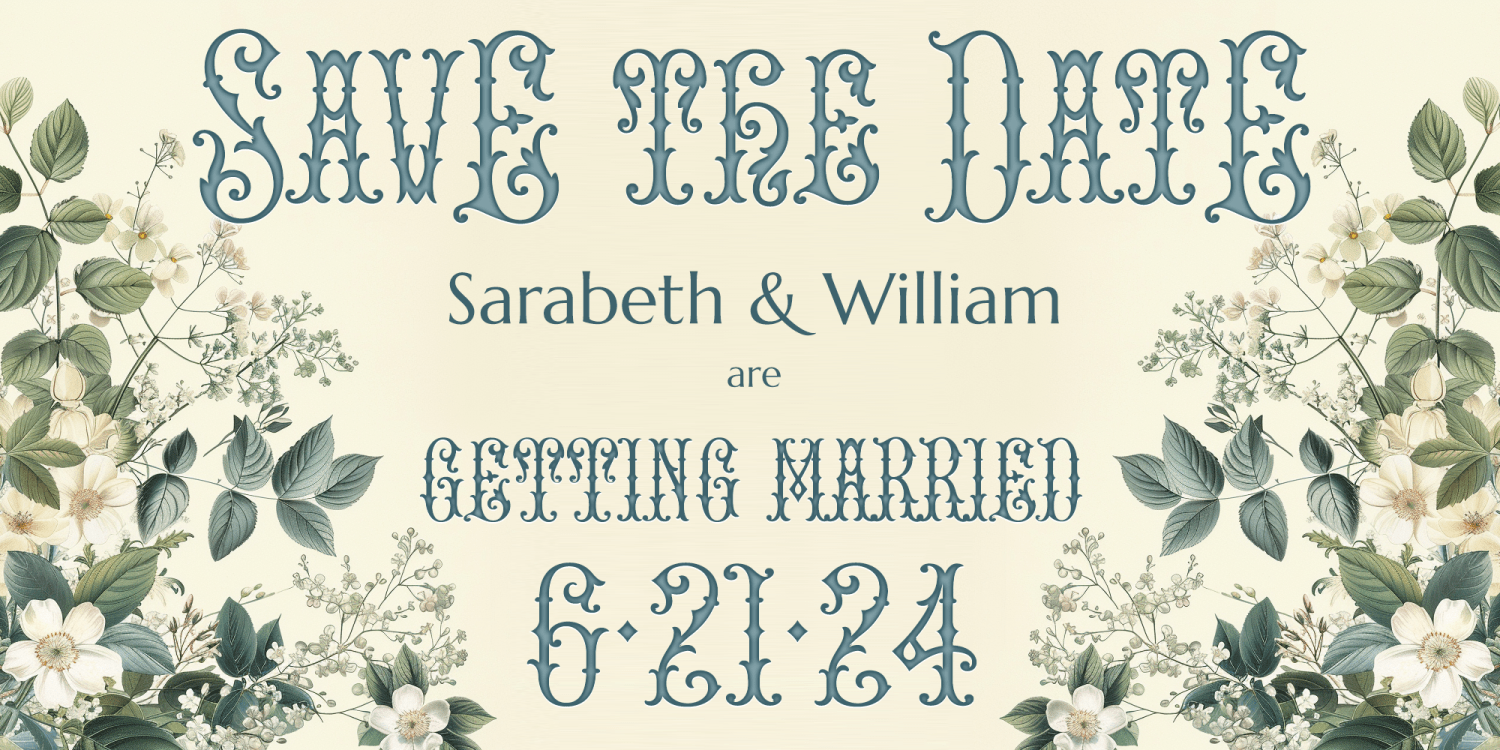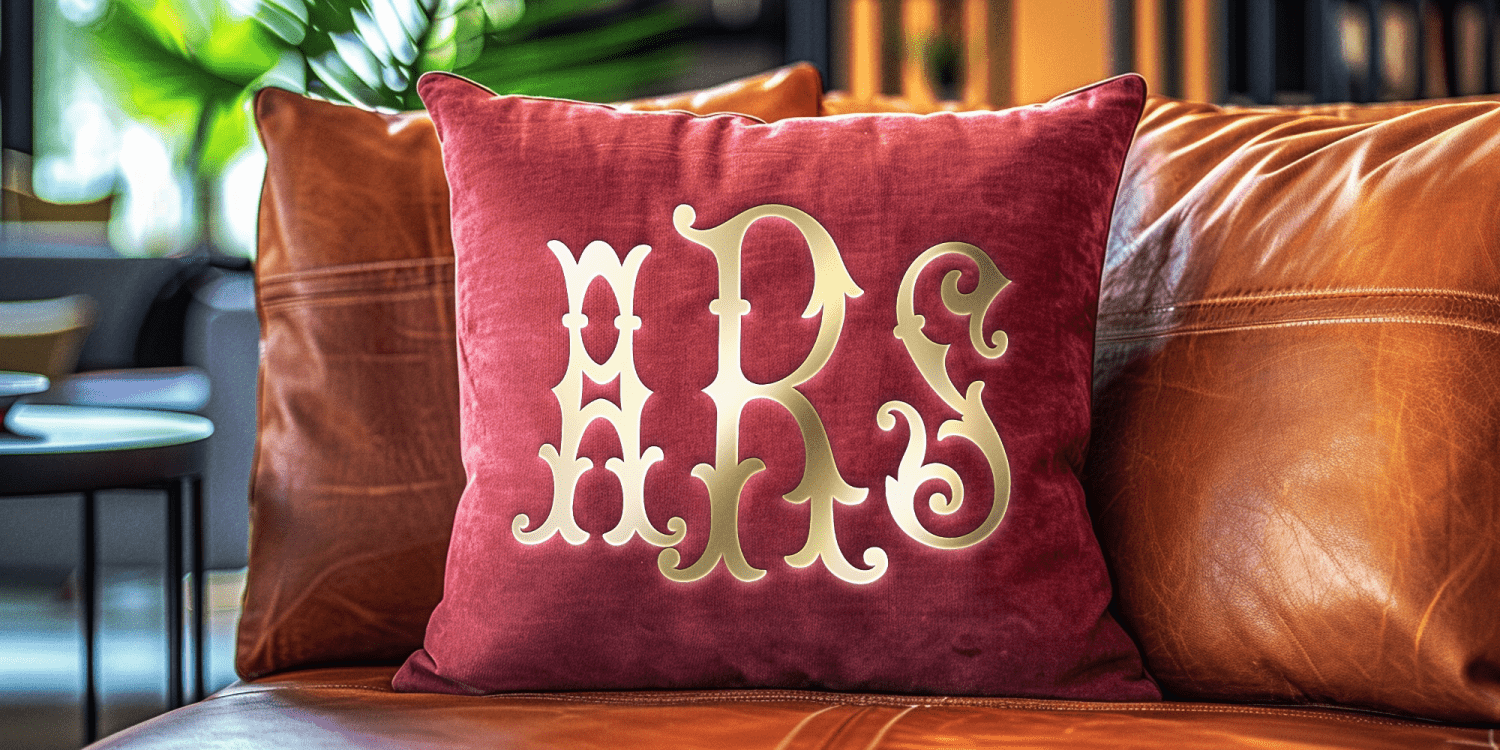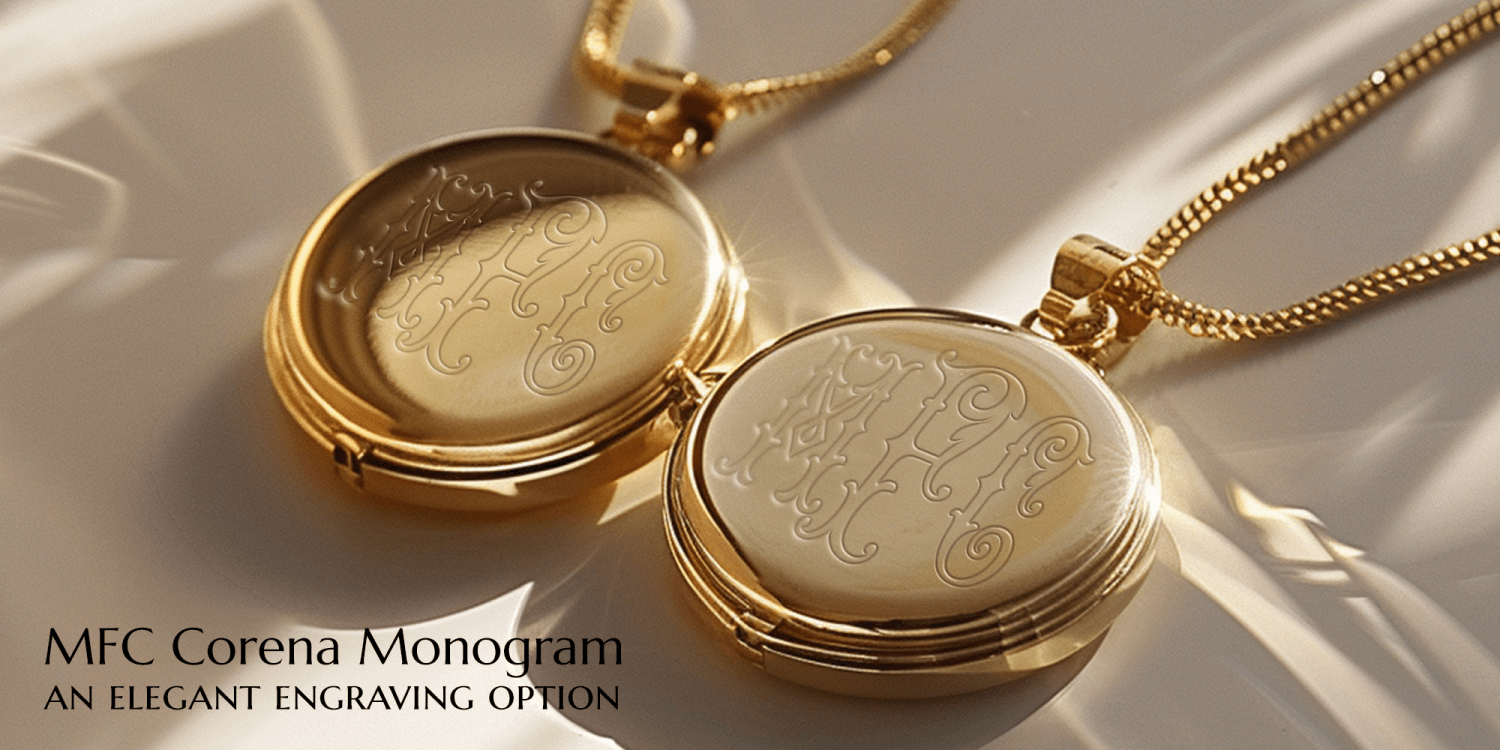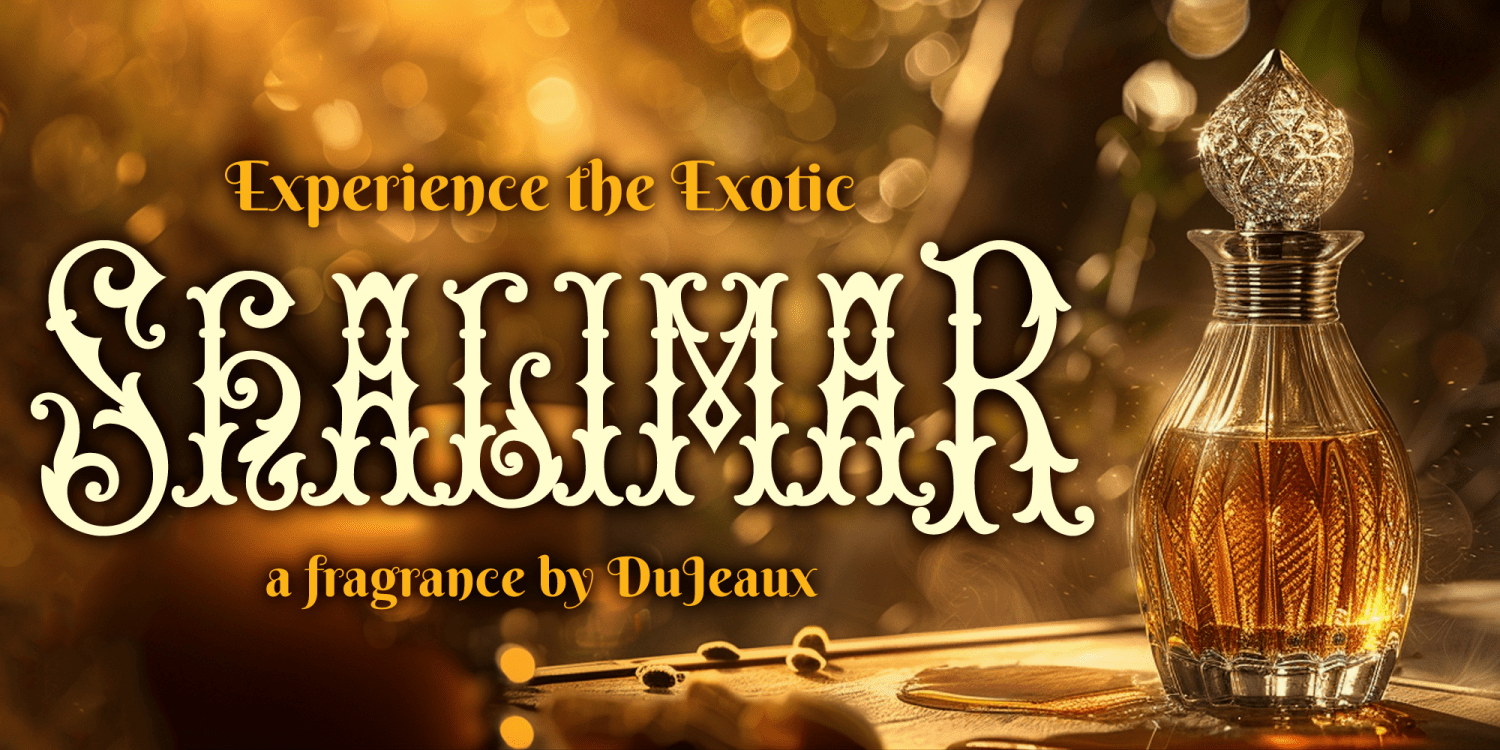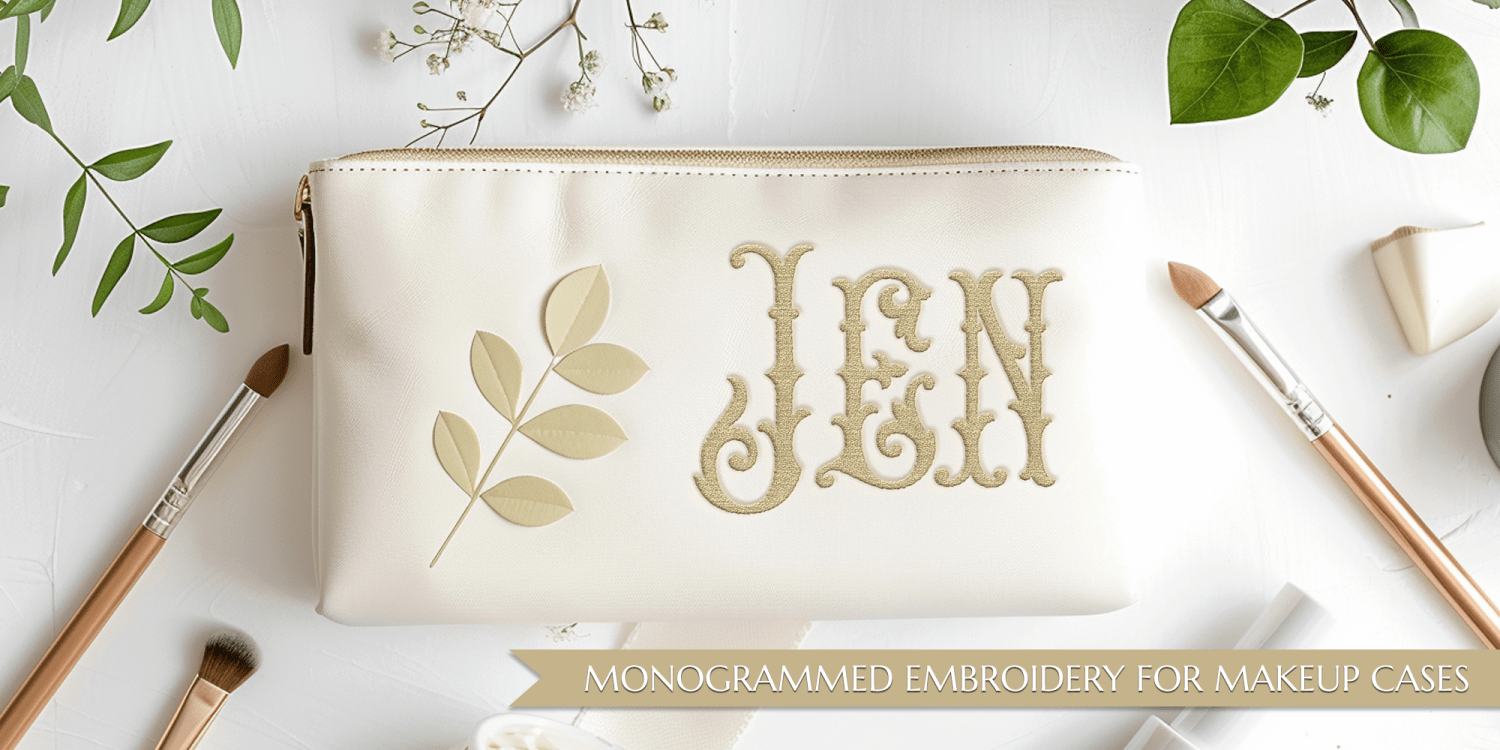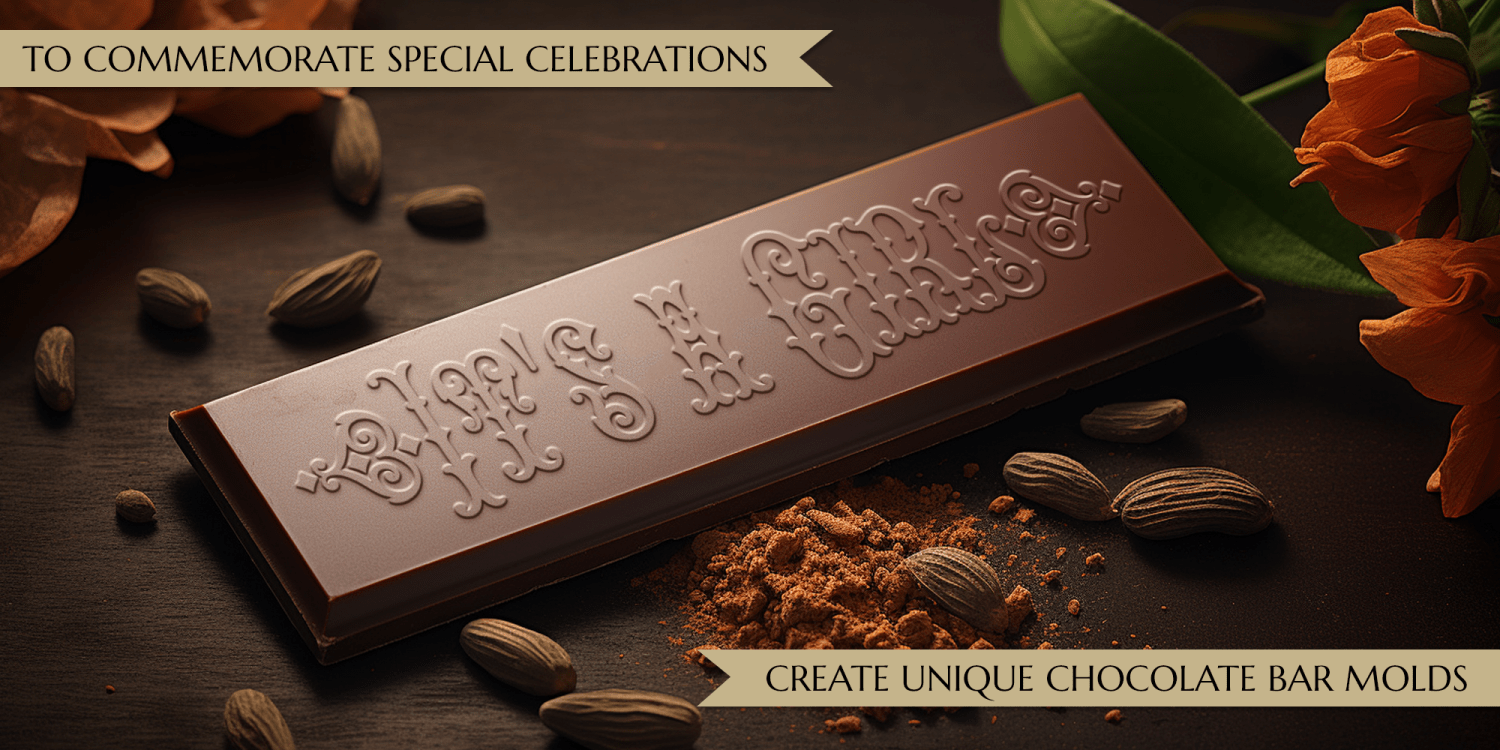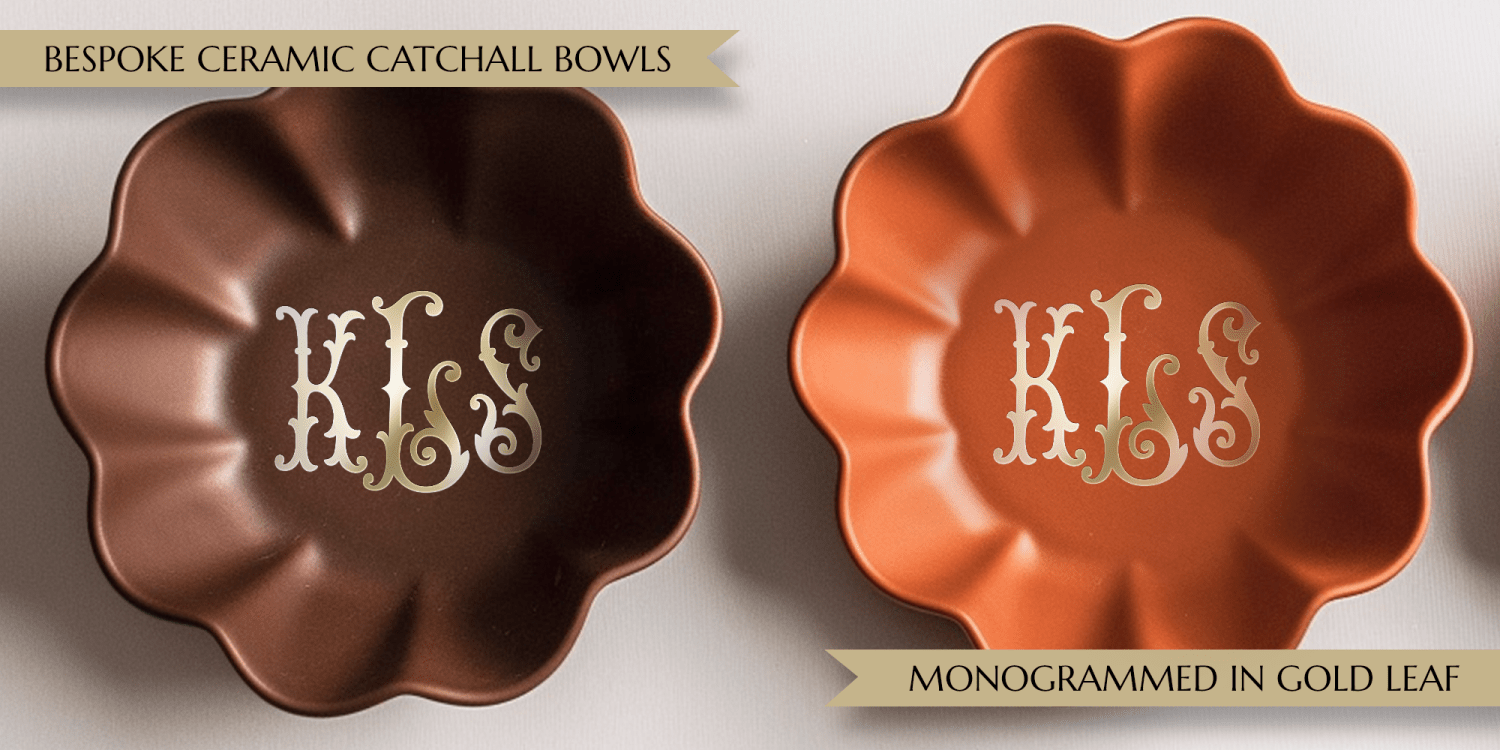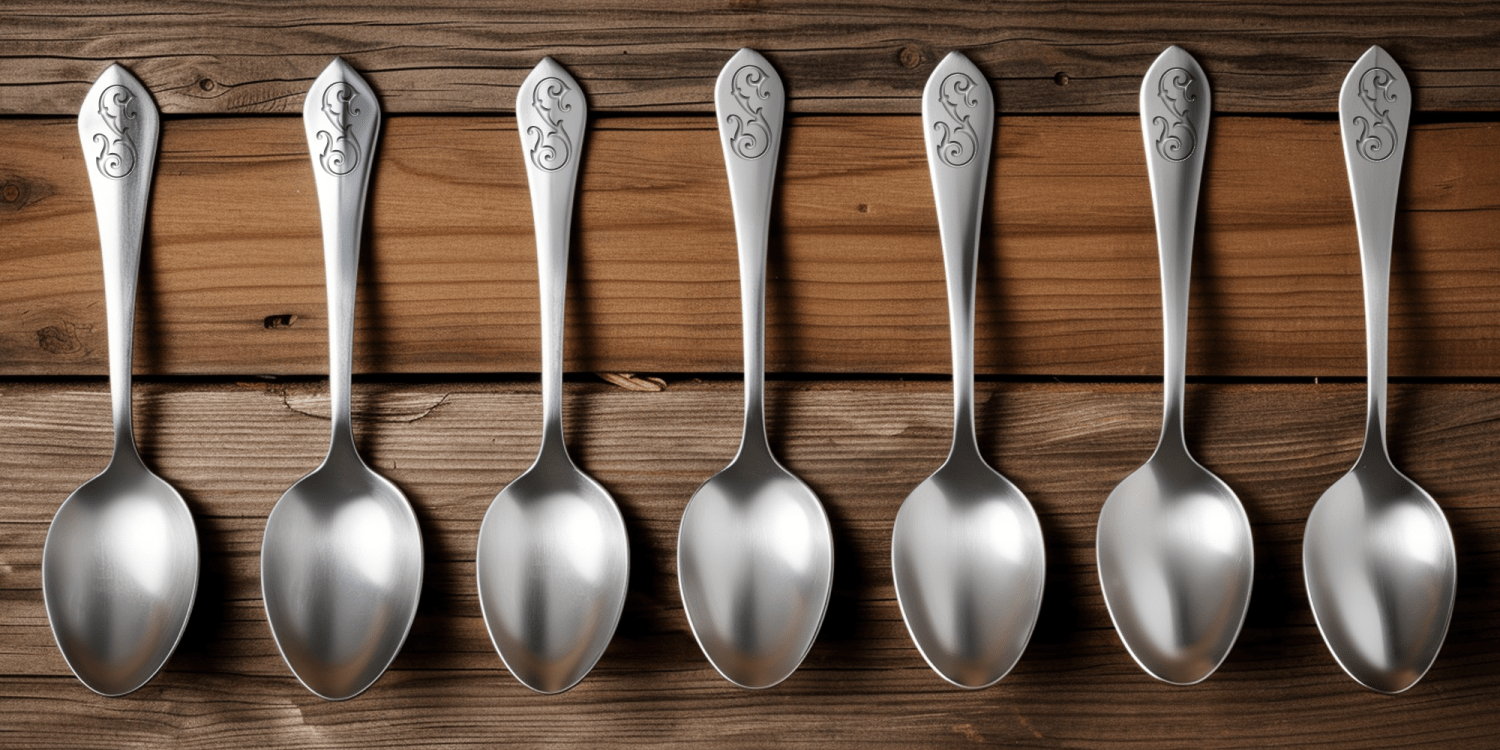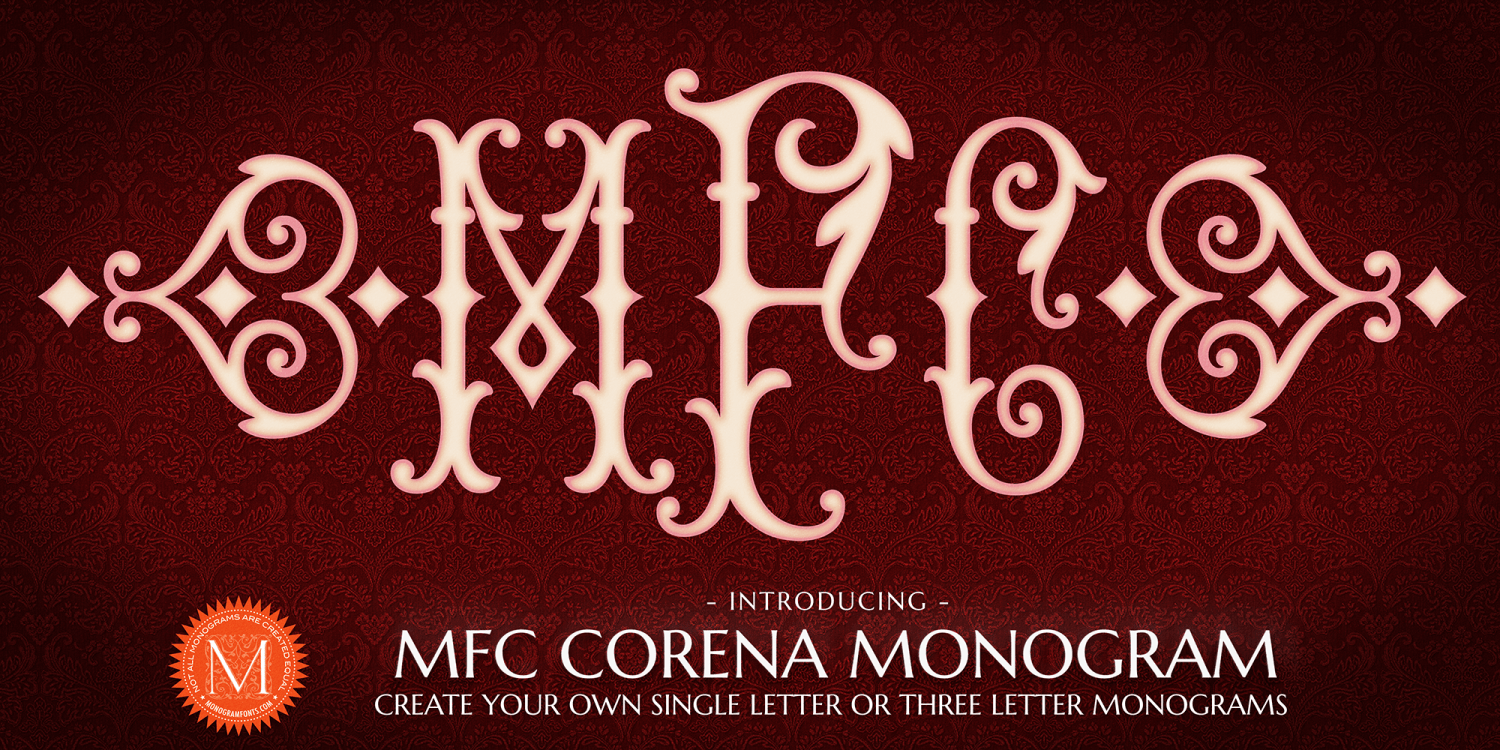
MFC Corena Monogram
About MFC Corena Monogram
The source of inspiration for MFC Corena Monogram is a distinguished narrow Victorian initial letterset from a vintage embroidery publication. This digital revival adds smallcaps, numerals, and additional characters for both monogram and titling…